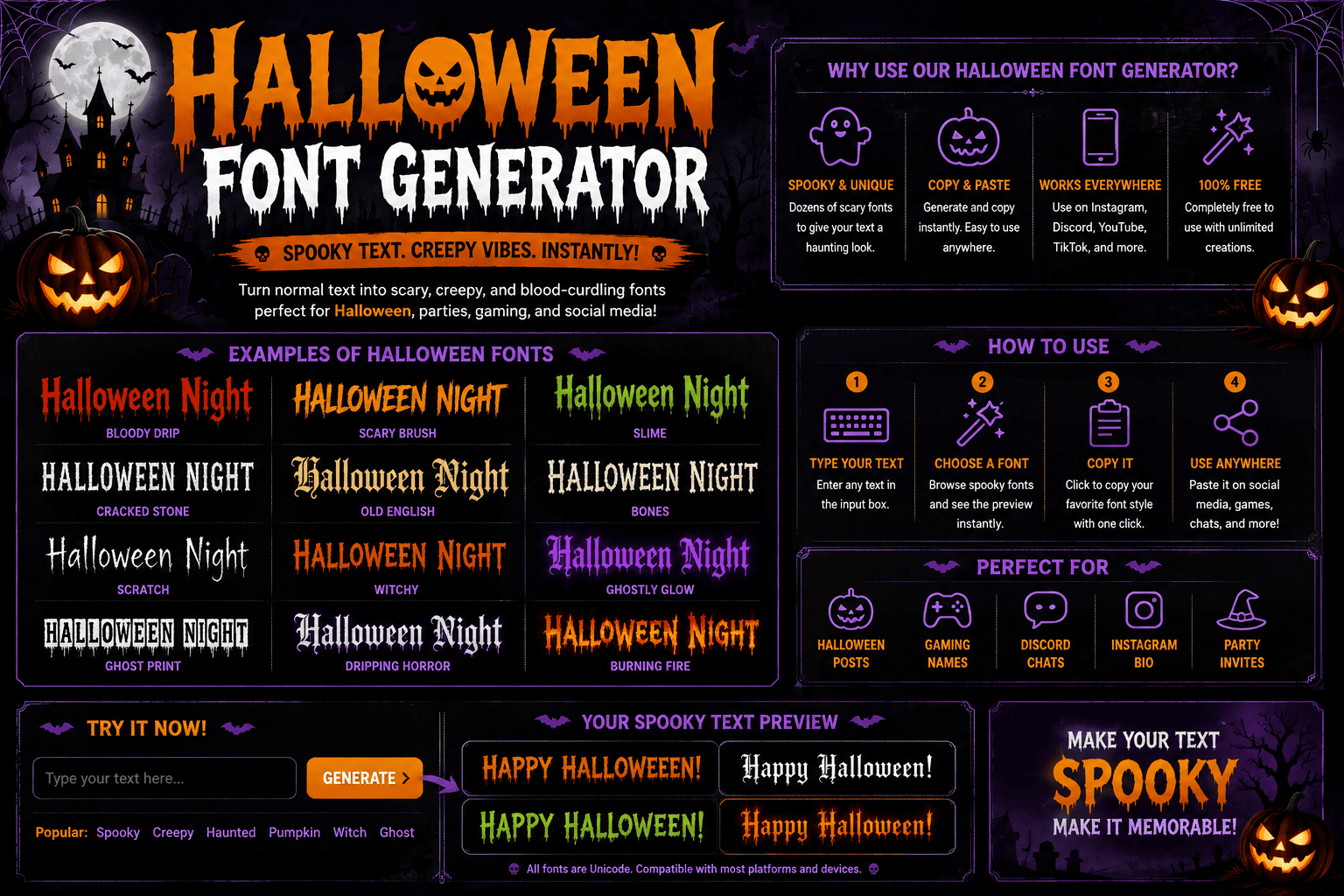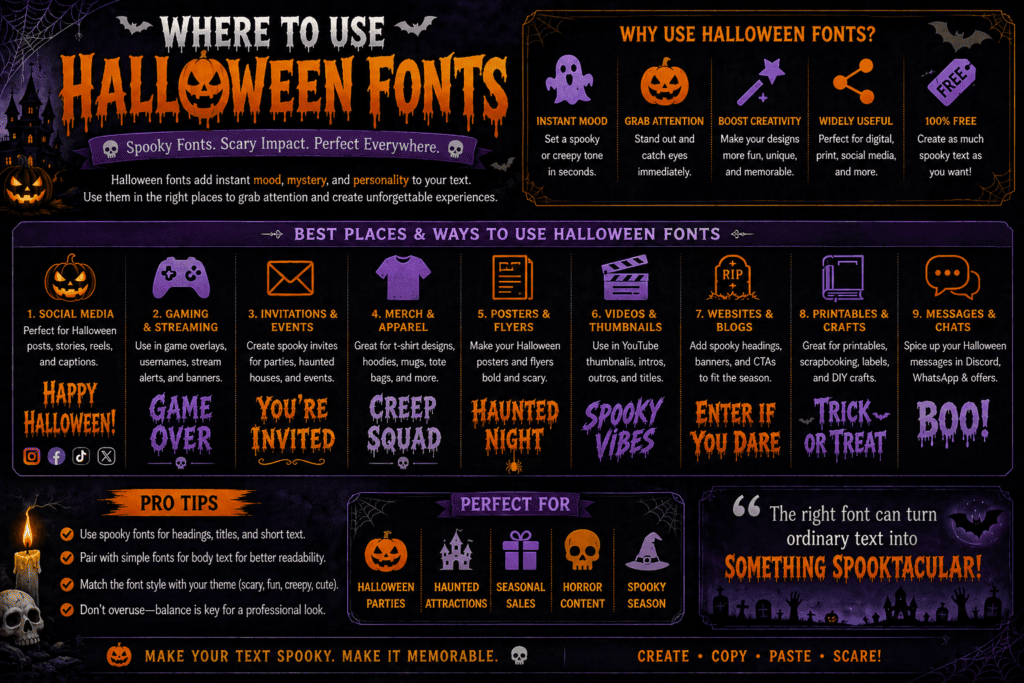
Halloween Font Generator Copy Paste
A practical Halloween Font Generator turns ordinary text into Halloween-themed lettering, combining spooky character choices with decorative typography. I find Unicode characters, special characters, and copy-and-paste options especially useful for quick social media publishing online.
For Instagram, TikTok, or Discord, the generated text can shift a message toward creepy, scary, seasonal personality. font selection, customization, and visual effects help balance personality, clarity, and platform compatibility through themed designs and graphics.
How To Use The Halloween Font Generator
First, start by entering your English text into the generator, then test an unusual font style before settling on one. I usually compare readability, Unicode text, text styles, and spacing together before copying results consistently.
Next, preview the chosen Halloween treatment across platforms, especially for gaming, invitations, and signs. Adjust the style, save the result, then copy and paste it where supported, or embed a graphic when necessary online successfully.
Gothic / Blackletter
Gothic / Blackletter styling gives Halloween lettering a medieval edge, especially when blackletter, Gothic typography, and horror details create dense forms. I often use UnifrakturMaguntia for titles because its dramatic structure remains recognizable at display sizes.
For darker projects, pairing Pirata One with restrained spooky fonts can add atmosphere without overwhelming messages. Halloween typography works best when contrast,spacing, and display typefaces are judged together across posters, invitations, or themed graphics.
Bloody / Dripping Horror
Bloody and dripping horror typography works best when letterforms suggest movement: blood, drip, and controlled edges create tension without sacrificing readability, especially across posters, invitations, merchandise, and Halloween-themed social designs at smaller sizes without distortion.
From my design work, bloody lettering becomes more convincing when contrast stays controlled. Pair horror themes with clear text, then test the mobile version, because dense effects quickly reduce legibility on smaller screens for audiences effectively.
Witchy / Magical / Script
For witchy lettering, I favor handwritten curves that keep witchy character without sacrificing clarity. A script treatment works especially well for cards, labels, and social graphics when the letters feel fluid, compact, and naturally connected.
In Canva, I prefer customizable designs with templates that let the script breathe. For Halloween party graphics, pairing pumpkins, witches, ghosts, or skeletons with restrained lettering keeps the magical mood polished rather than cluttered online.
Cute / Playful / Kid-Friendly
For children’s Halloween designs, kid-friendly type works best when playful details stay clear on small screens. I often pair pumpkin, ghost, and decorative text with soft lettering, keeping the mood cheerful rather than frightening easily.
A generator can turn ordinary words into playful Halloween typography for party invitations, crafts, or social media posts. Cute styles should remain readable, copy-paste friendly, and suitable for young audiences without overwhelming the overall design.
Glitch / Cursed / Distorted
Glitch effects become compelling when creepy fonts fracture clean lettering into unstable shapes. For Halloween projects, I favor stylized text with controlled distortion, especially when Unicode supports quick copy-paste experimentation across digital typography scenes today.
On mobile, visual complexity can hide meaning, while unsupported platforms may replace characters unexpectedly. I test scary fonts at small sizes, refine spacing, and add decorative characters until cursed text stays readable for online creators.
Where To Use Halloween Fonts
Halloween fonts work beyond party invites: I use them in social media posts, captions, and usernames when a seasonal identity needs immediate character without editing every Halloween-themed post manually for Facebook, Twitter/X, or YouTube daily.
Beyond sharing, they suit Halloween invitations, event graphics, and themed designs; I recommend posters, flyers, display text, and decorative lettering for Halloween decorations, haunted-house signage, and party spaces where atmosphere matters as much as readability.
Social Media
On social platforms, Halloween fonts can sharpen bios, captions, and usernames without redesigning an entire profile. I often use Unicode styles, decorative text, and copy-paste elements to add seasonal personality quickly and consistently through stories.
For online creators, smaller mobile text works well across YouTube thumbnails, Facebook, and Twitter/X. Mixing spooky symbols with emojis keeps posts recognizable, while restrained typography prevents display issues and preserves readability on phones during seasons.